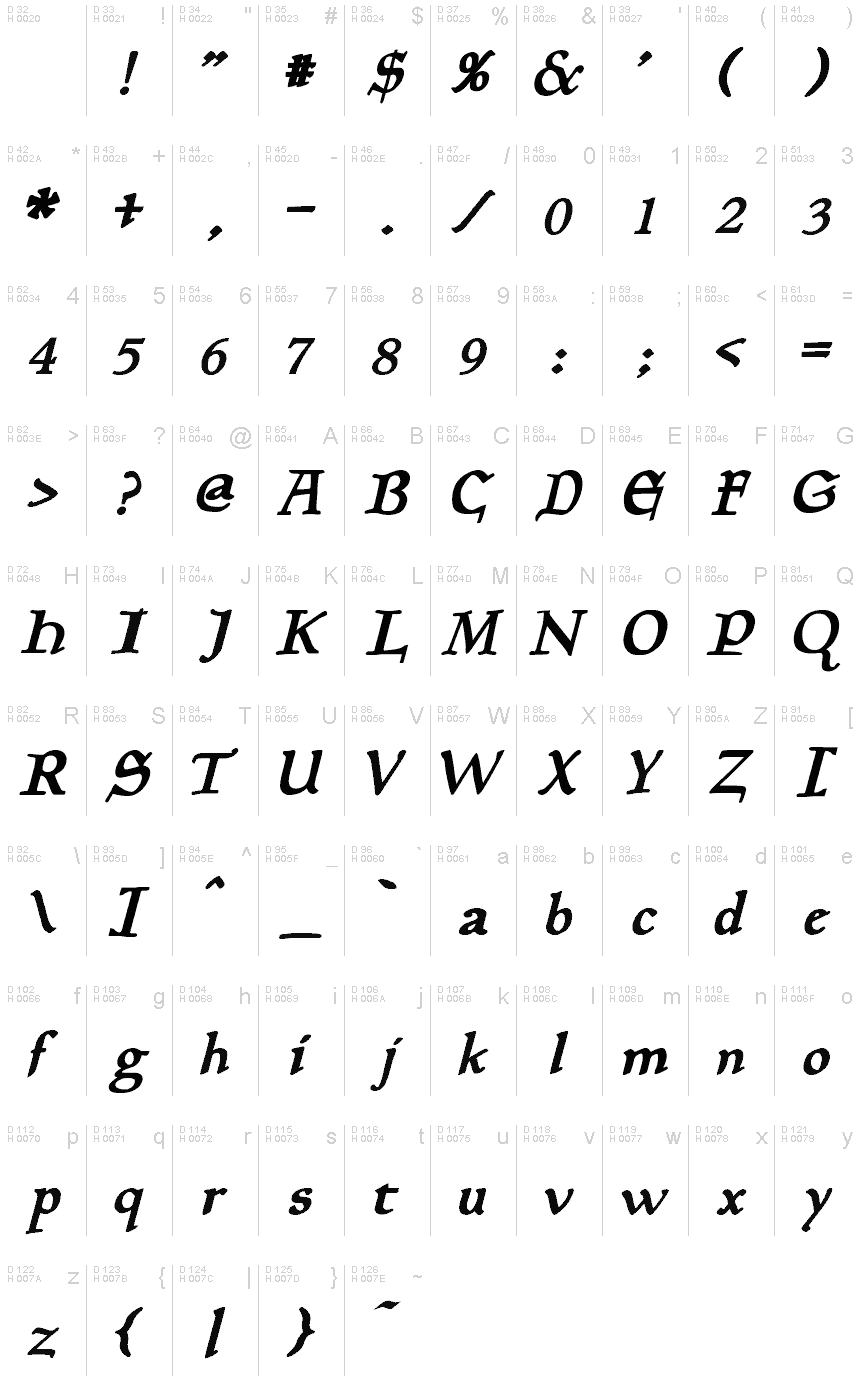
Planewalker Bold Italic
Planewalker Bold Italic is a captivating calligraphic-style font that pays homage to the distinctive card text from the early editions of the iconic Magic: The Gathering trading card game. This gothic typeface exudes a sense of mysticism and adventure, with its fluid strokes and bold, italic flourishes.
The full alphabet, extended punctuation, and Euro characters offer a comprehensive set of typographic tools, allowing designers to craft compelling narratives across a range of applications. From fantasy-inspired editorial layouts to impactful branding and packaging design, Planewalker Bold Italic's striking aesthetics and versatility make it a valuable addition to any creative's typographic arsenal.